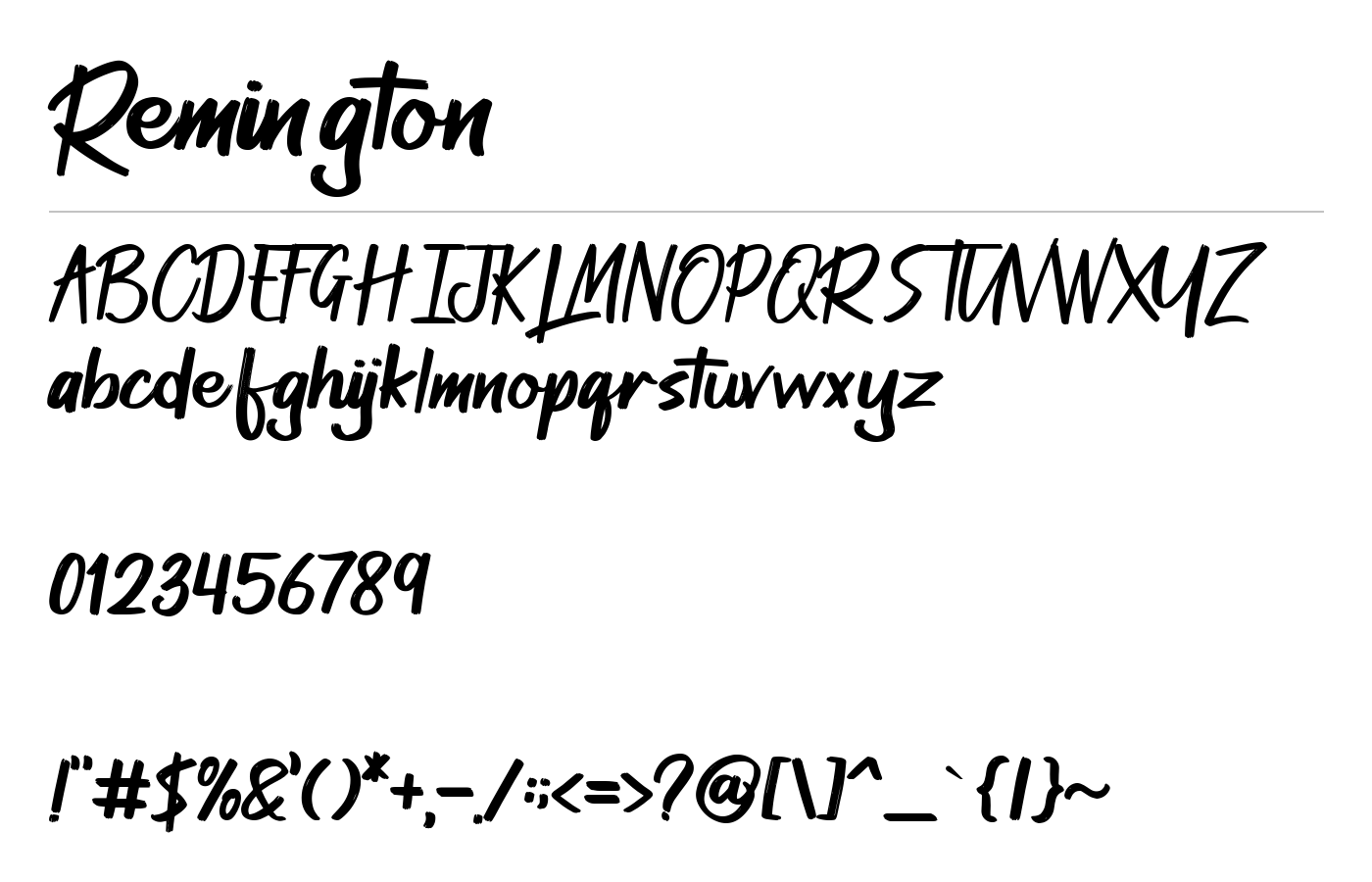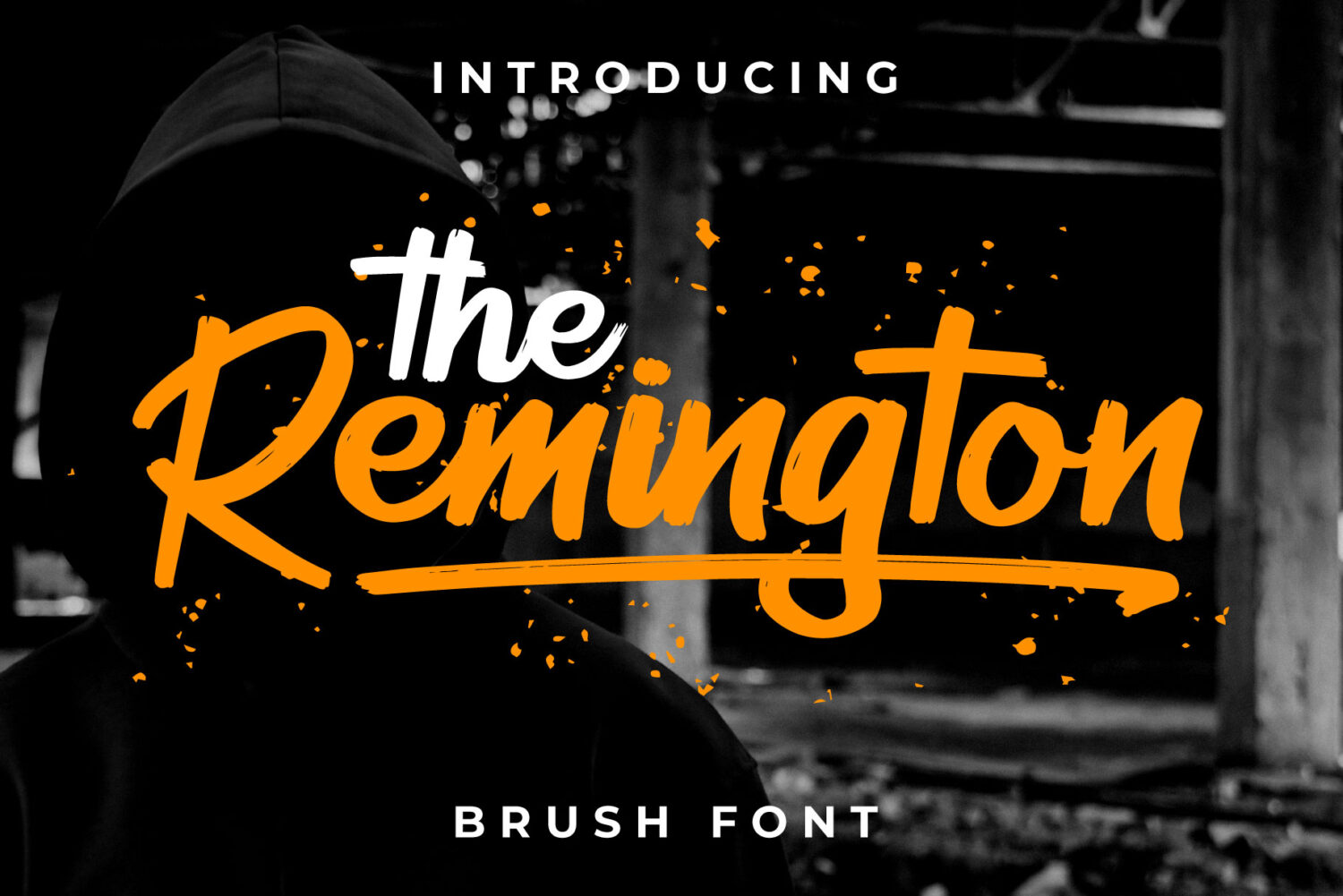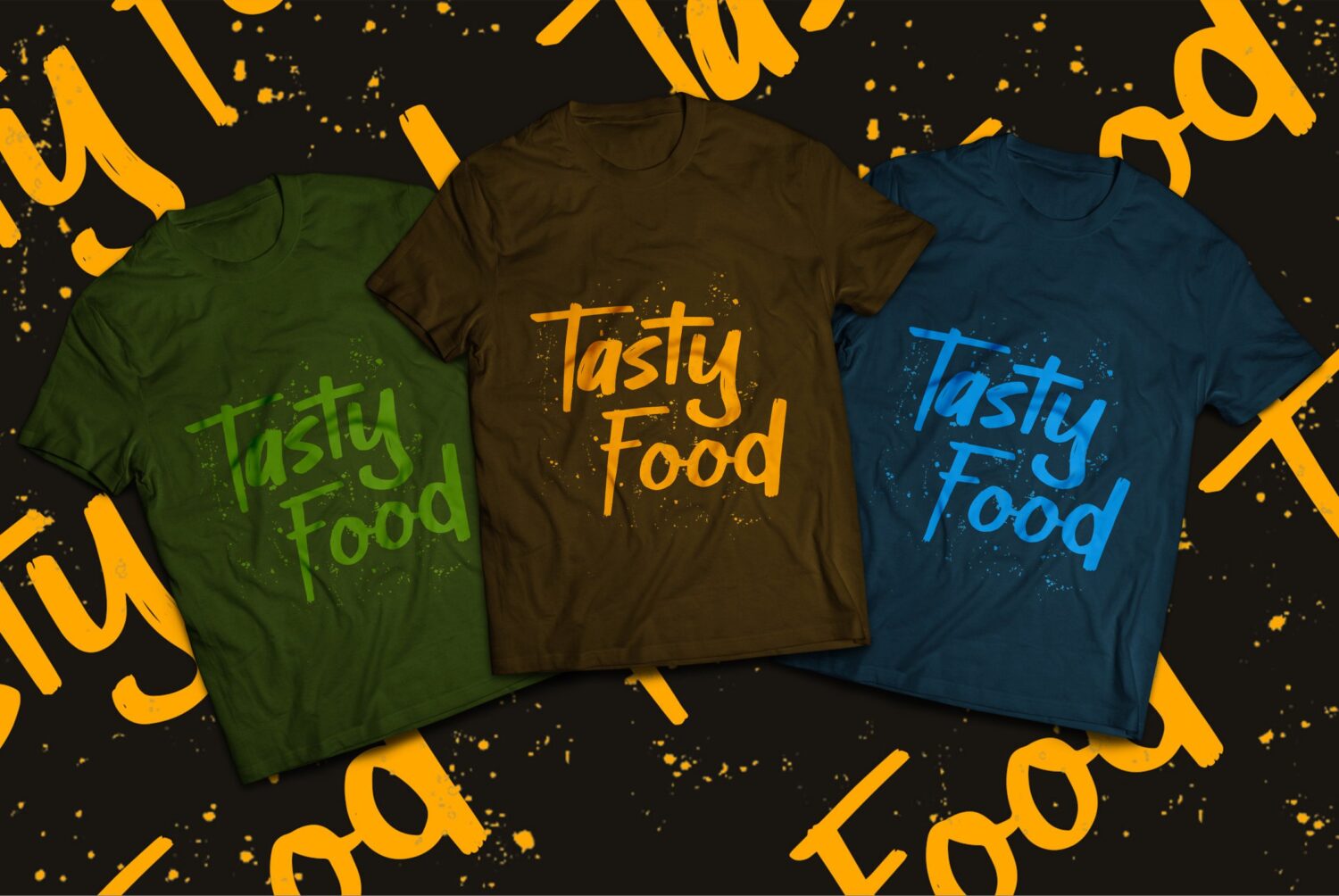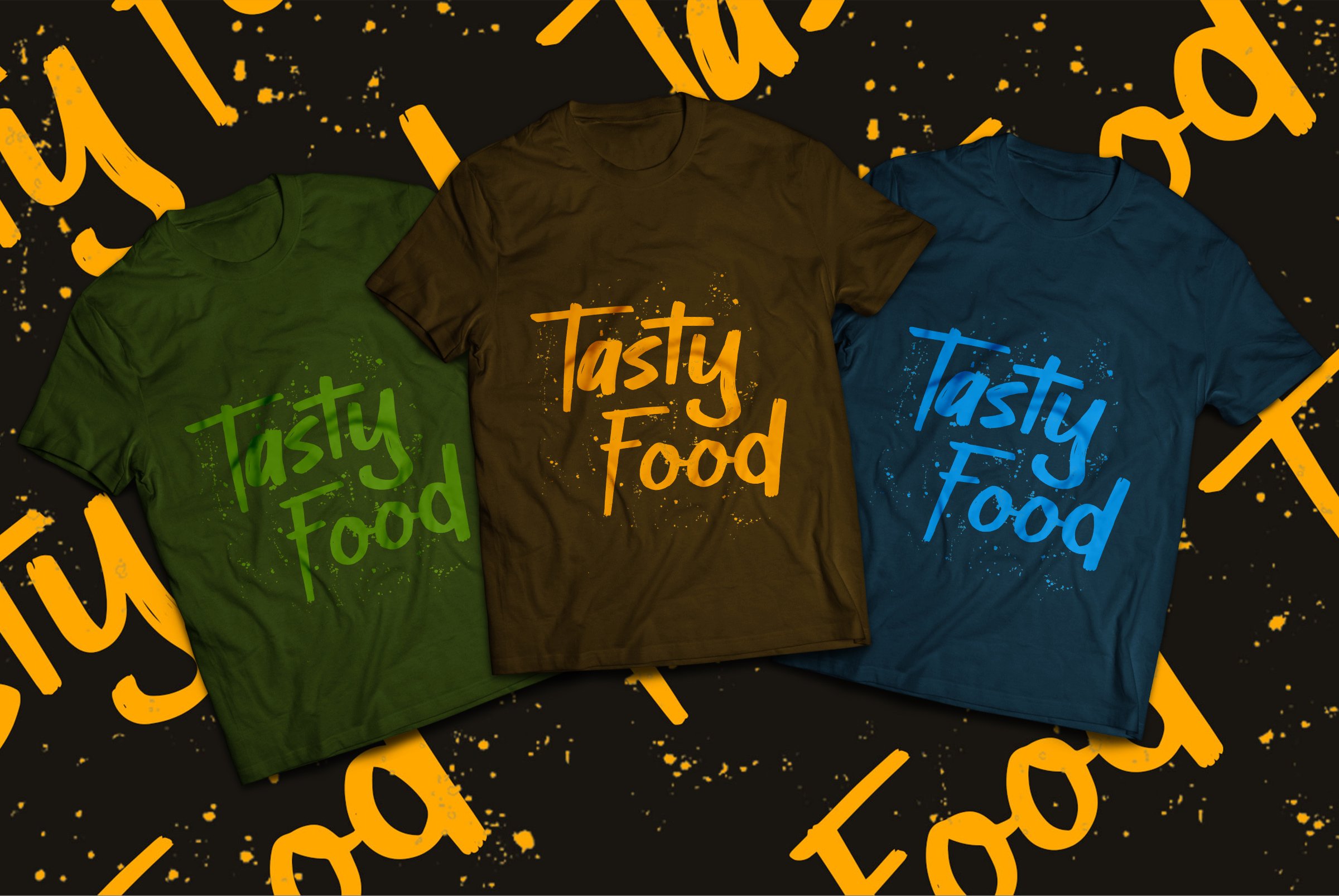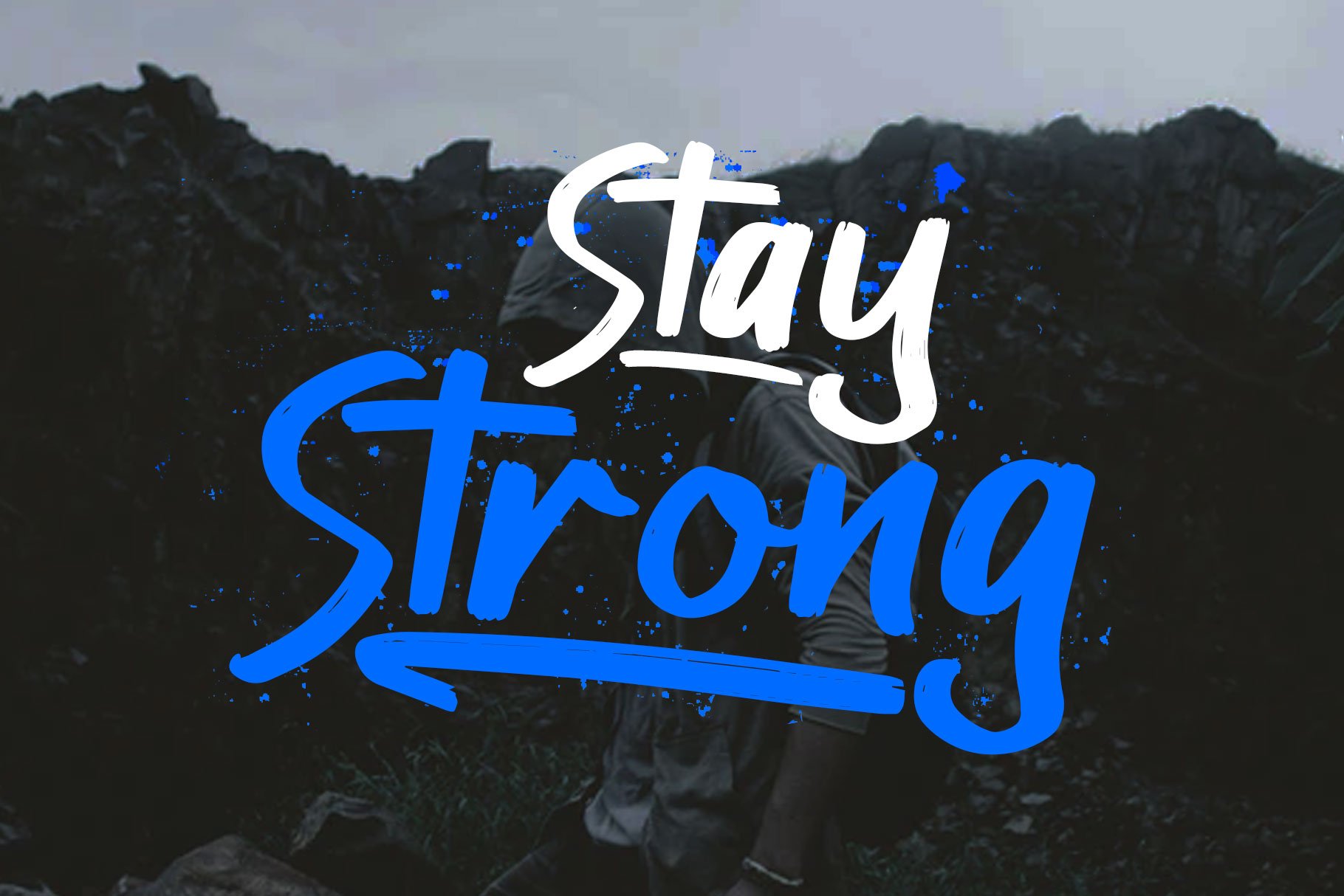
Remington Brush is a casual, energetic brush script font with a lively, hand-painted feel. Its smooth, moderately bold strokes and expressive letterforms bring a friendly, approachable vibe that suits creative branding, informal headlines, and playful design projects. This font works well for logos, packaging, and social media where a personal, artistic touch is desired.
Remington Brush Font
About Remington Brush Font